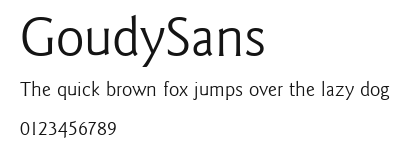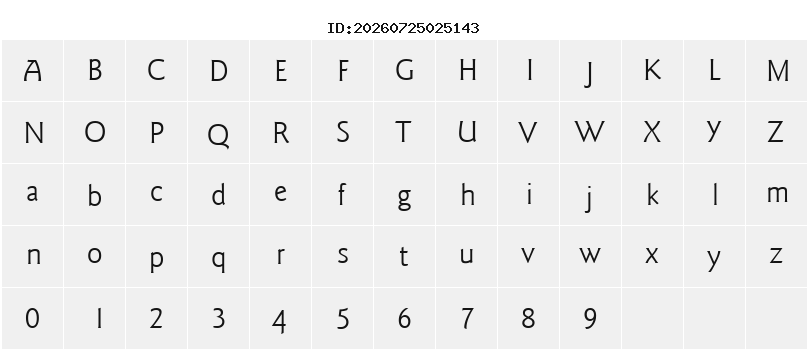
GoudySans Preview
About GoudySans.ttf
GoudySans.ttf is a modern, elegant sans-serif font designed for ultimate readability and visual harmony. Perfect for branding, headlines, web design, and print materials.